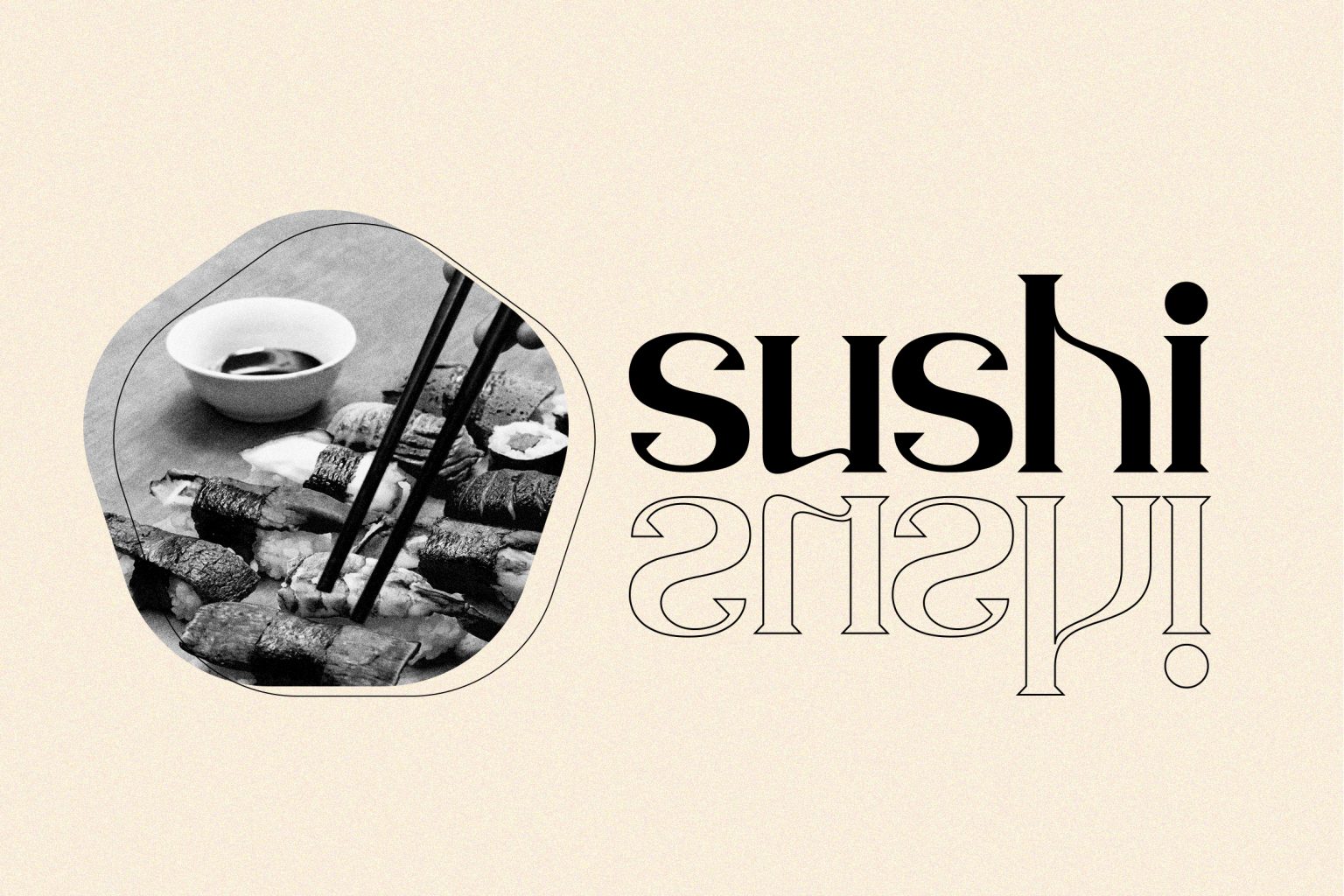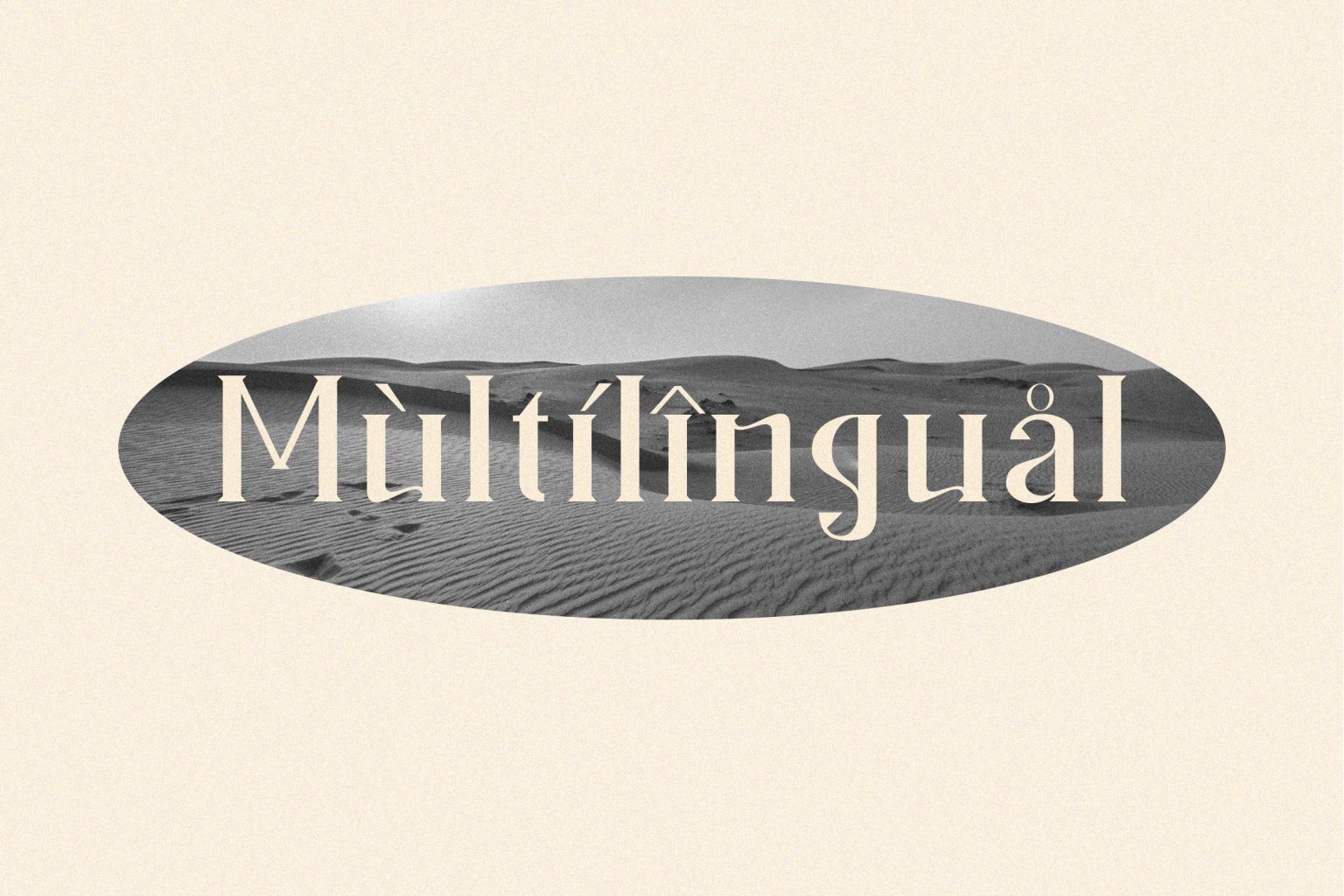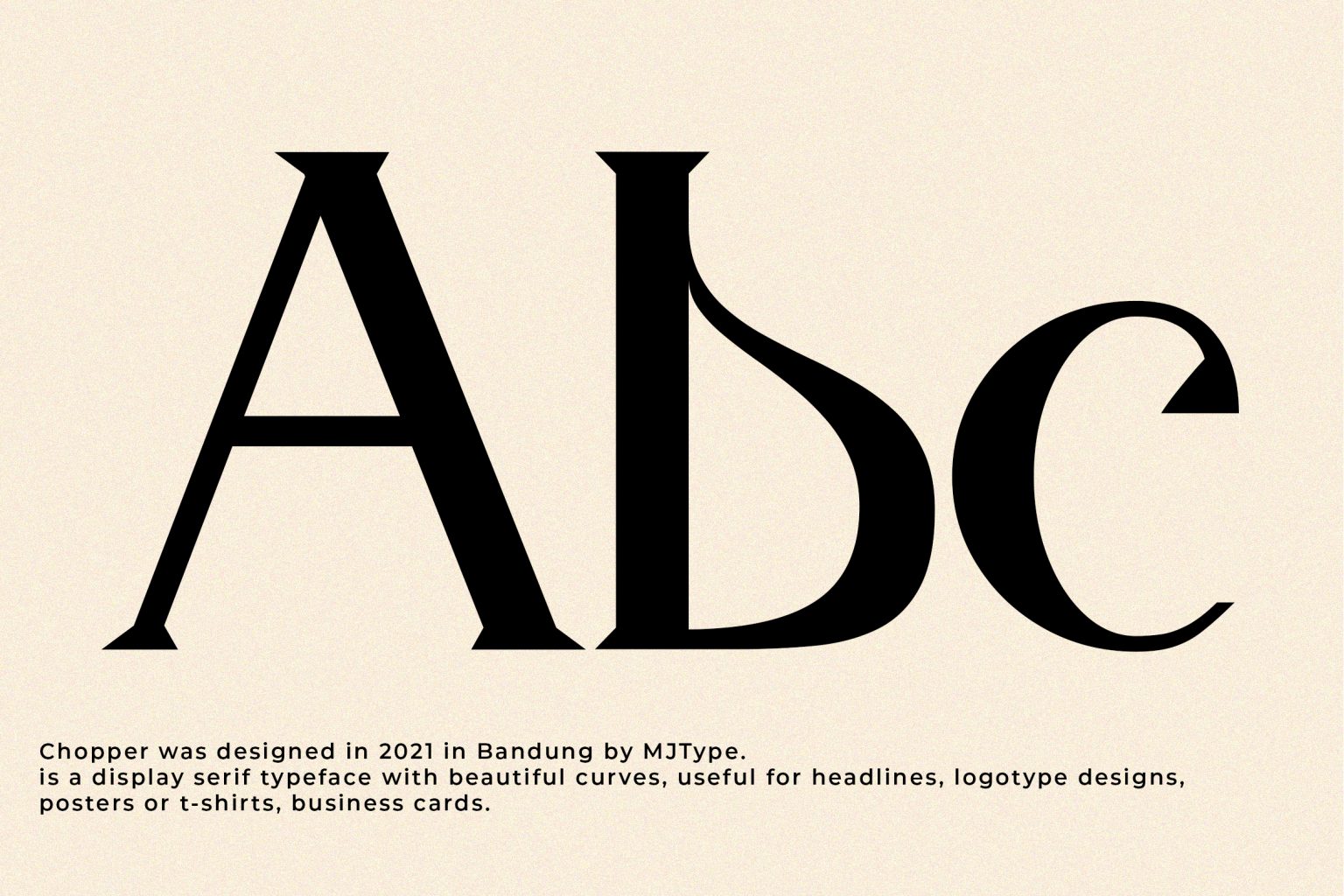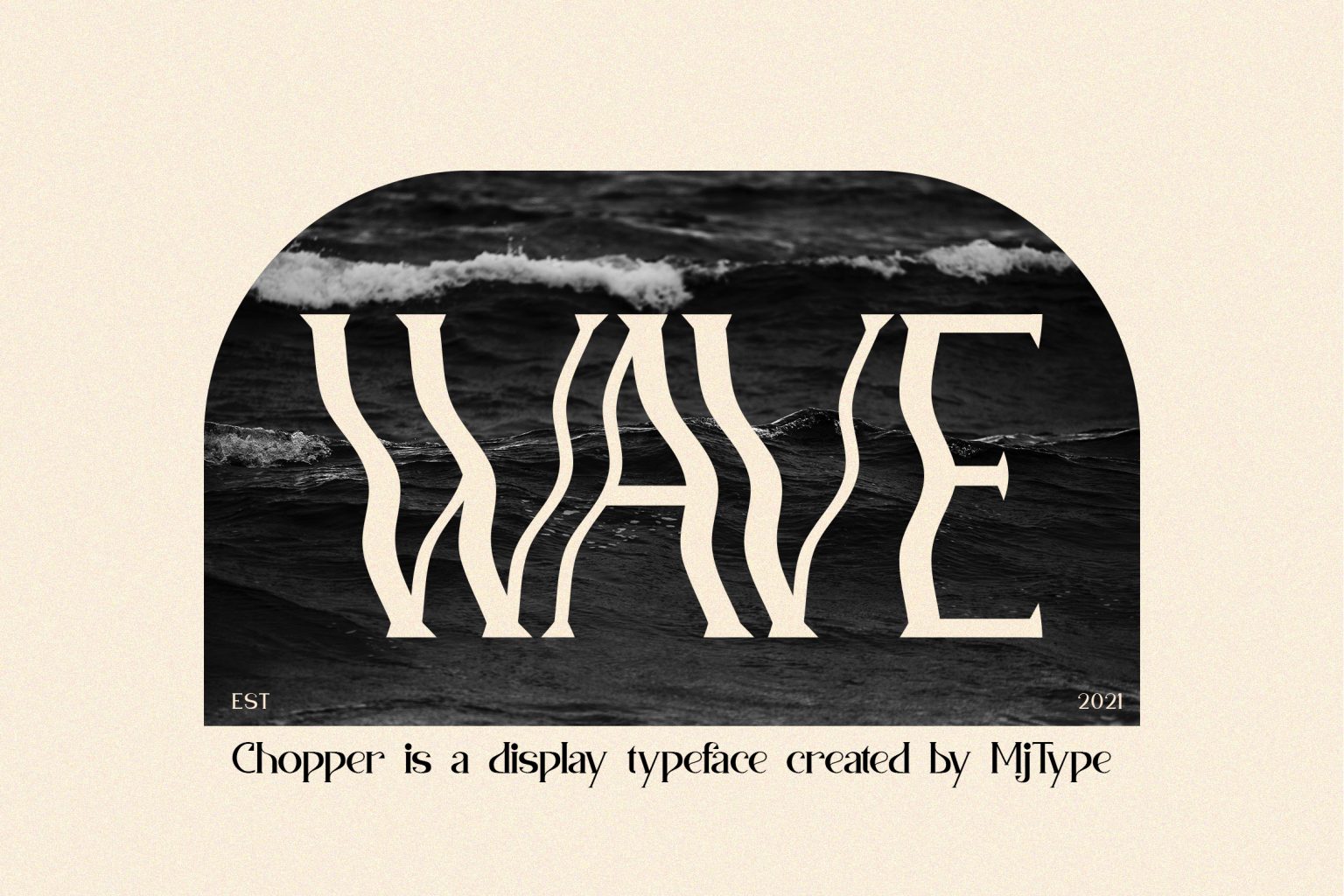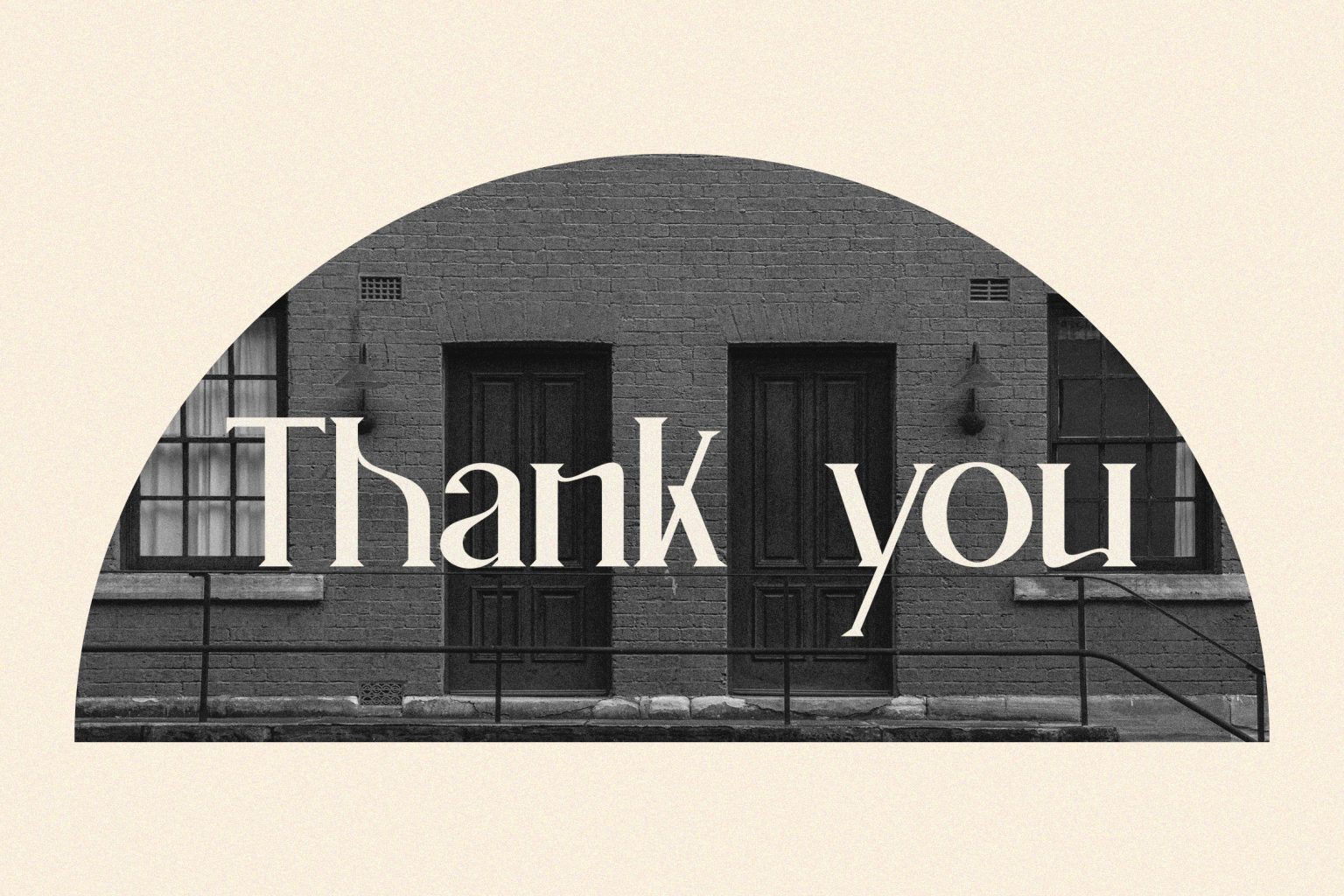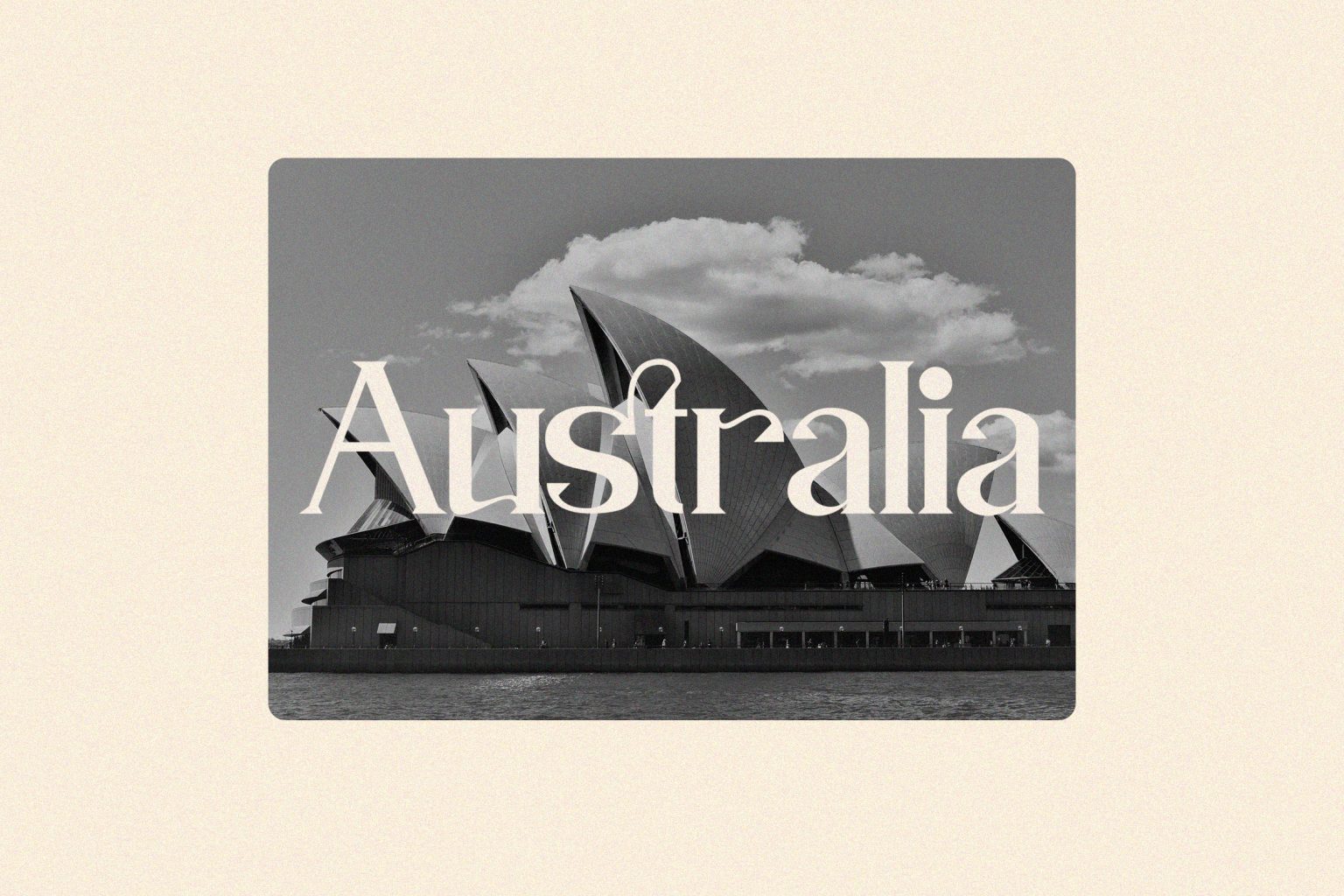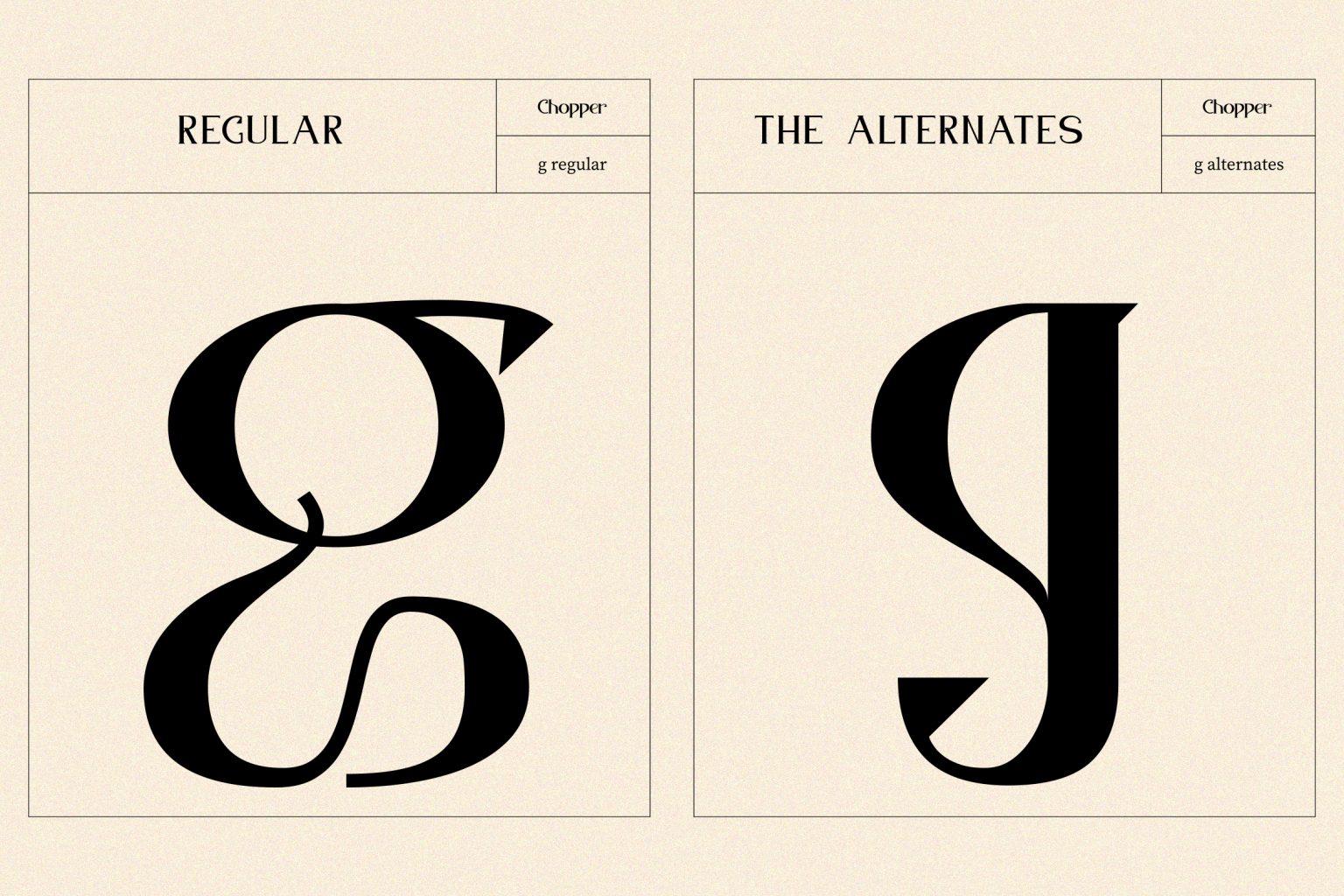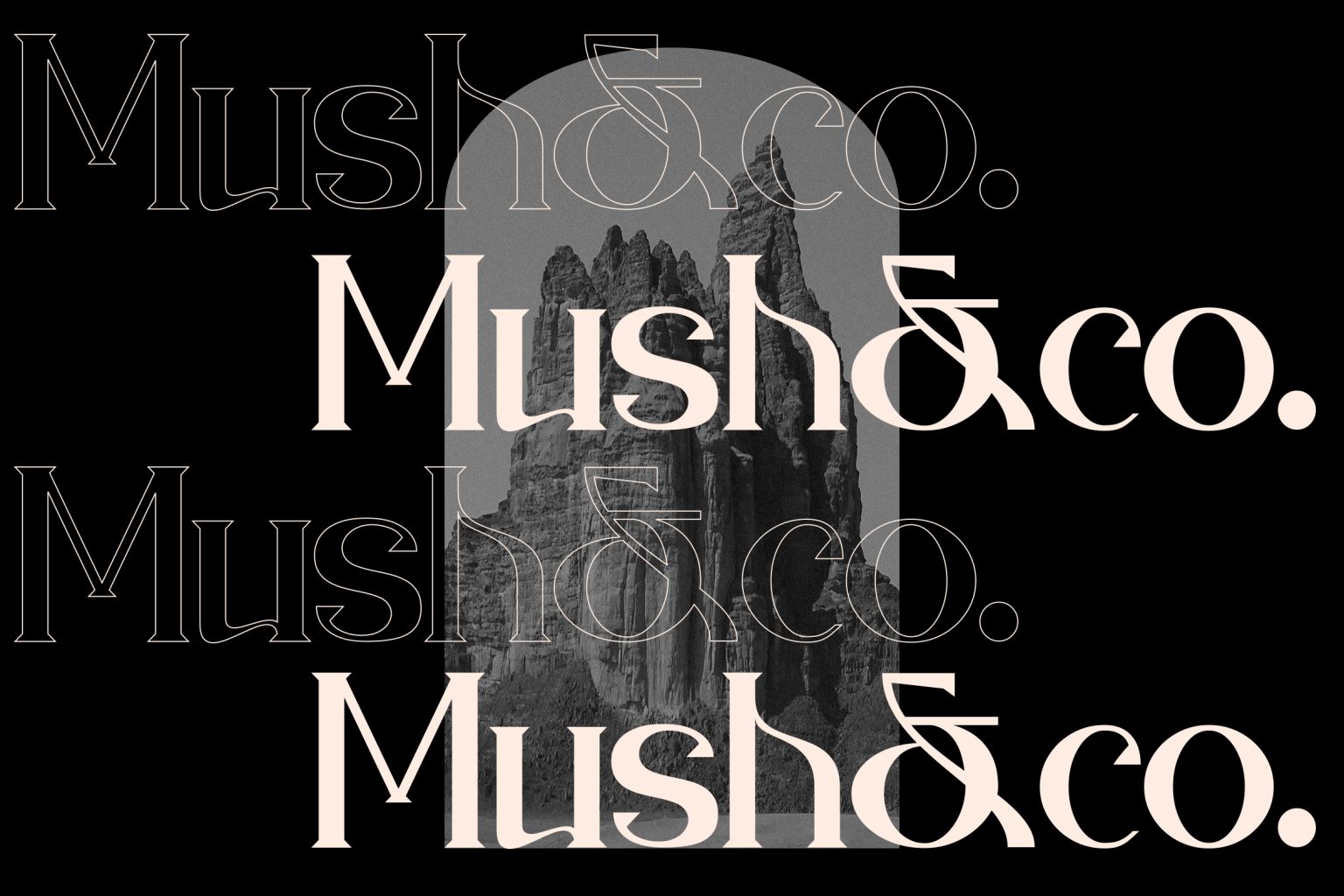
Chopper was designed in 2021 in Bandung by MJType.
is a display serif typeface with beautiful curves, useful for headlines, logotype designs,
posters or t-shirts, business cards.
- Ligature & Alternate
- Fonts include multilingual support for; Afrikaans, Albanian, Czech, Danish, Dutch, English, Estonian, Finnish, French, German, Hungarian, Italian, Latvian, Lithuanian, Norwegian, Polish, Portuguese, Slovak, Slovenian, Spanish, Swedish.